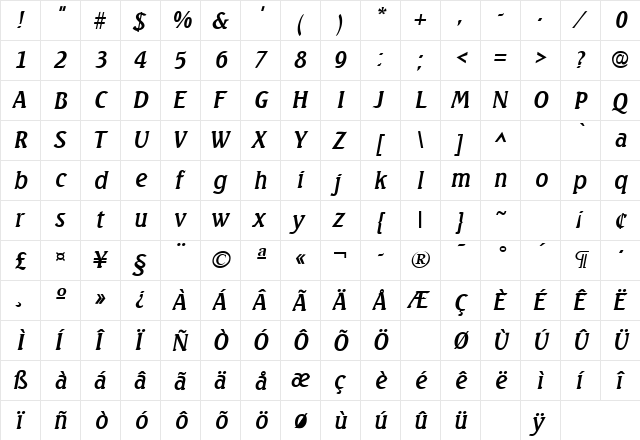
Seagull Italic Font Preview
Seagull Italic
Seagull Italic Font Details
Design Context for Seagull Typeface
Seagull is a composed and adaptable typeface that performs quietly and consistently across a wide range of design contexts. The slanted form adds forward momentum and visual energy.